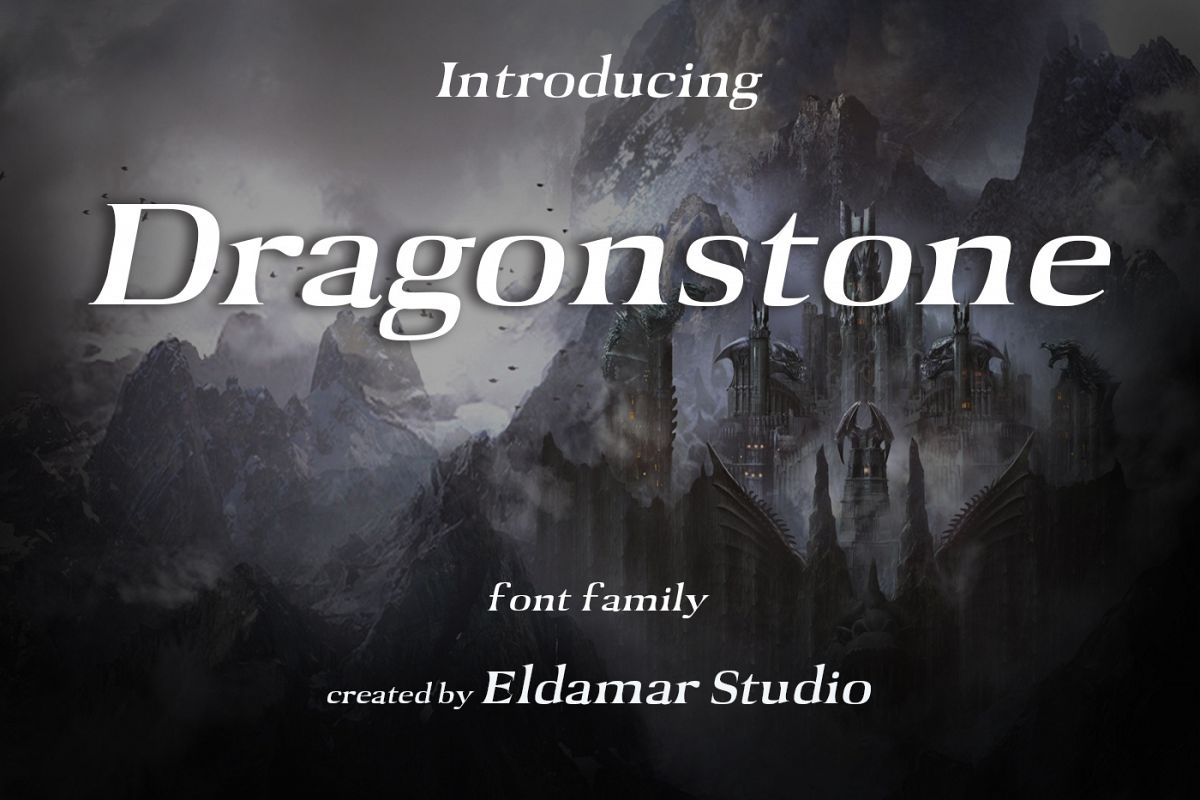
Dragonstone Font
Dragonstone regular
Dragonstone
Font it's a wonderful font with a unique, detailed and handmade look.
These fonts looks amazing in all caps with a wide-set spacing if you
want to try a classy look, or beautiful on its own in capital and
lowercase letters for something completely timeless. Perfect for
gorgeous logos, displays, headers, invitations, save the dates,
weddings, titles, web layouts and branding, etc.